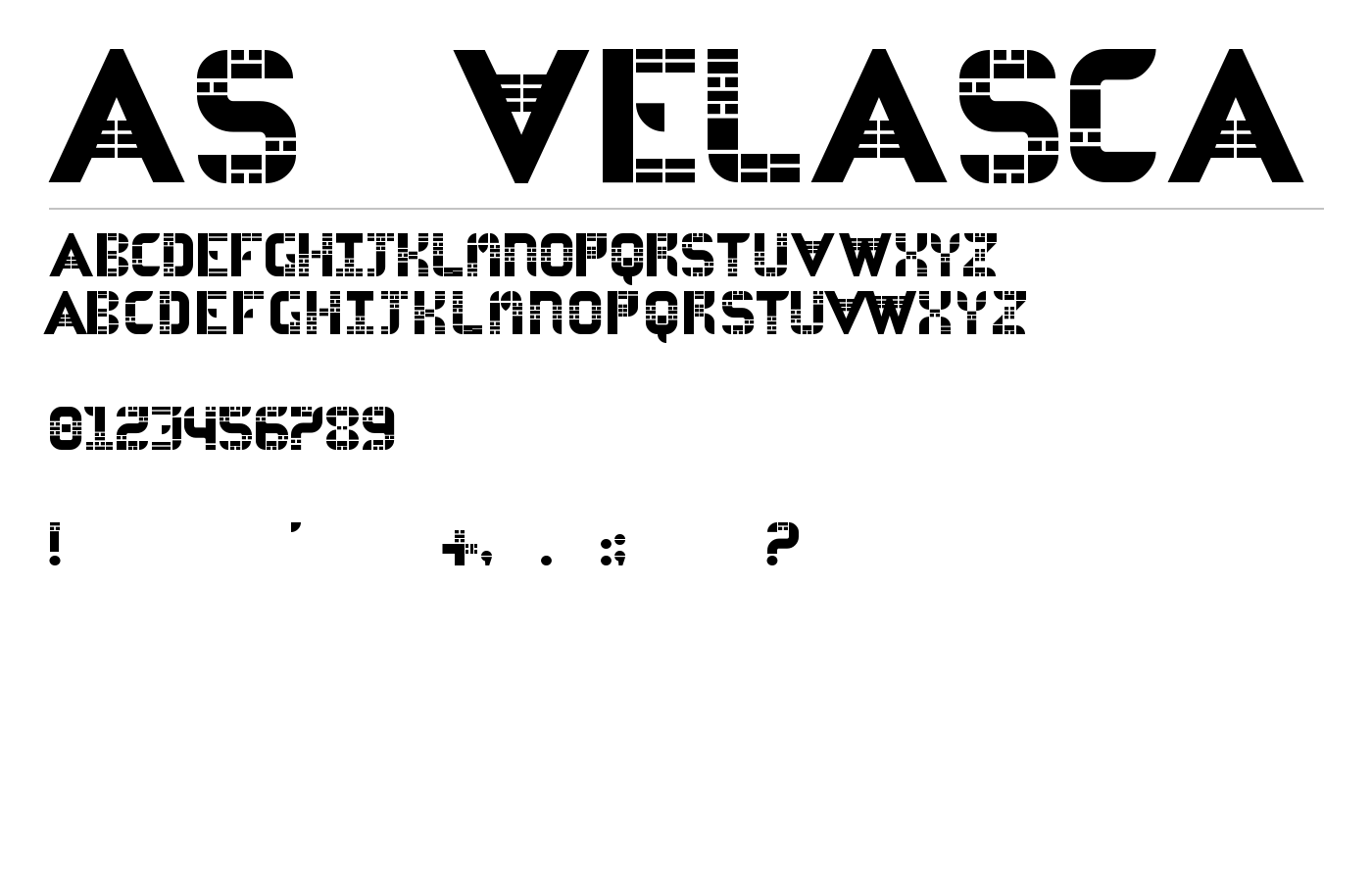
AS-VELASCA is a bold, geometric sans serif font characterized by its solid, blocky letterforms combined with a unique pattern of horizontal stripes and grid-like cutouts. Its uppercase-only design with high contrast between filled and negative spaces gives it a modern, industrial feel suited for display purposes. This font works best for eye-catching headlines, logos, and posters where a strong, avant-garde statement is desired.
AS-VELASCA Font
About AS-VELASCA Font